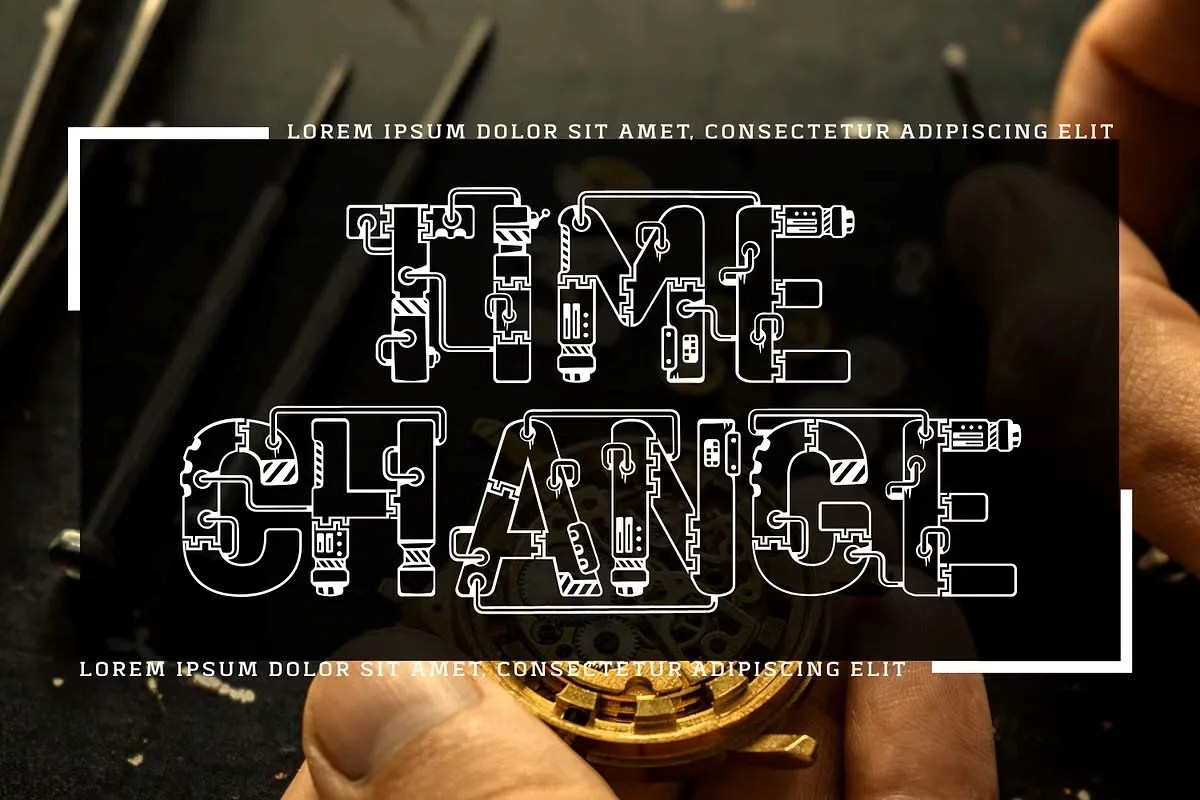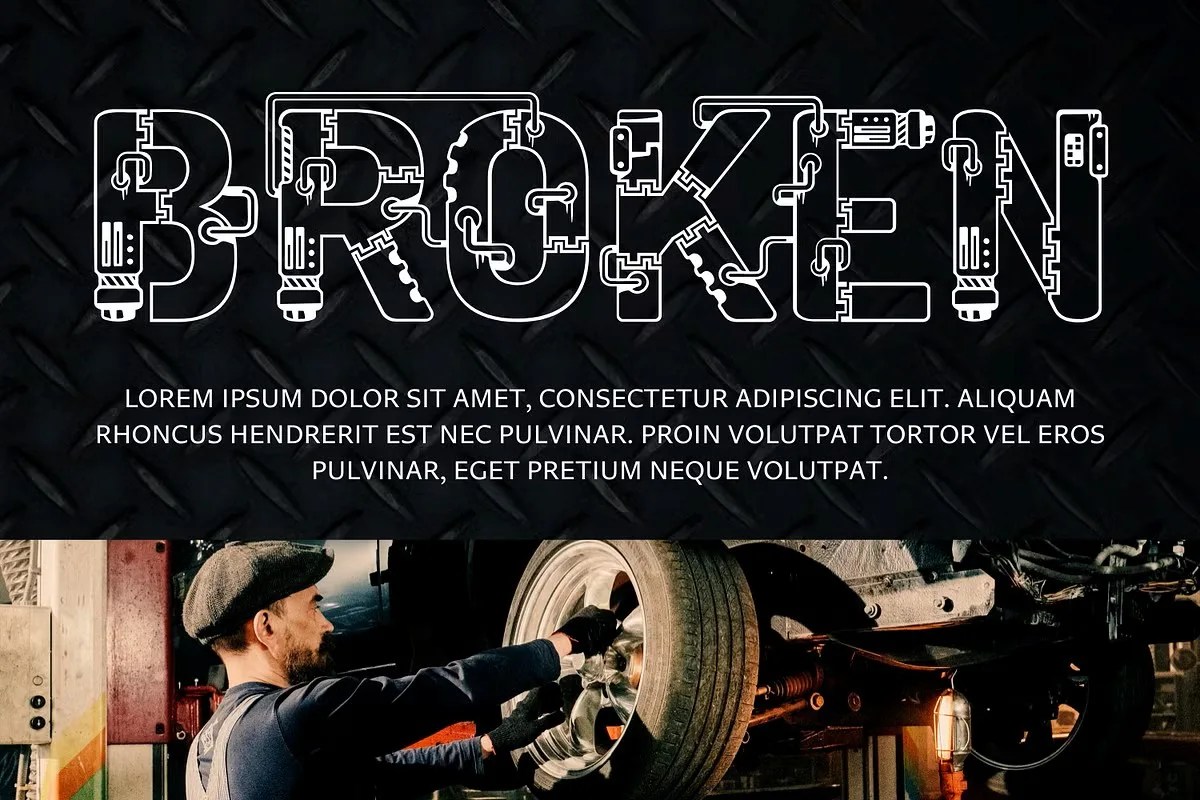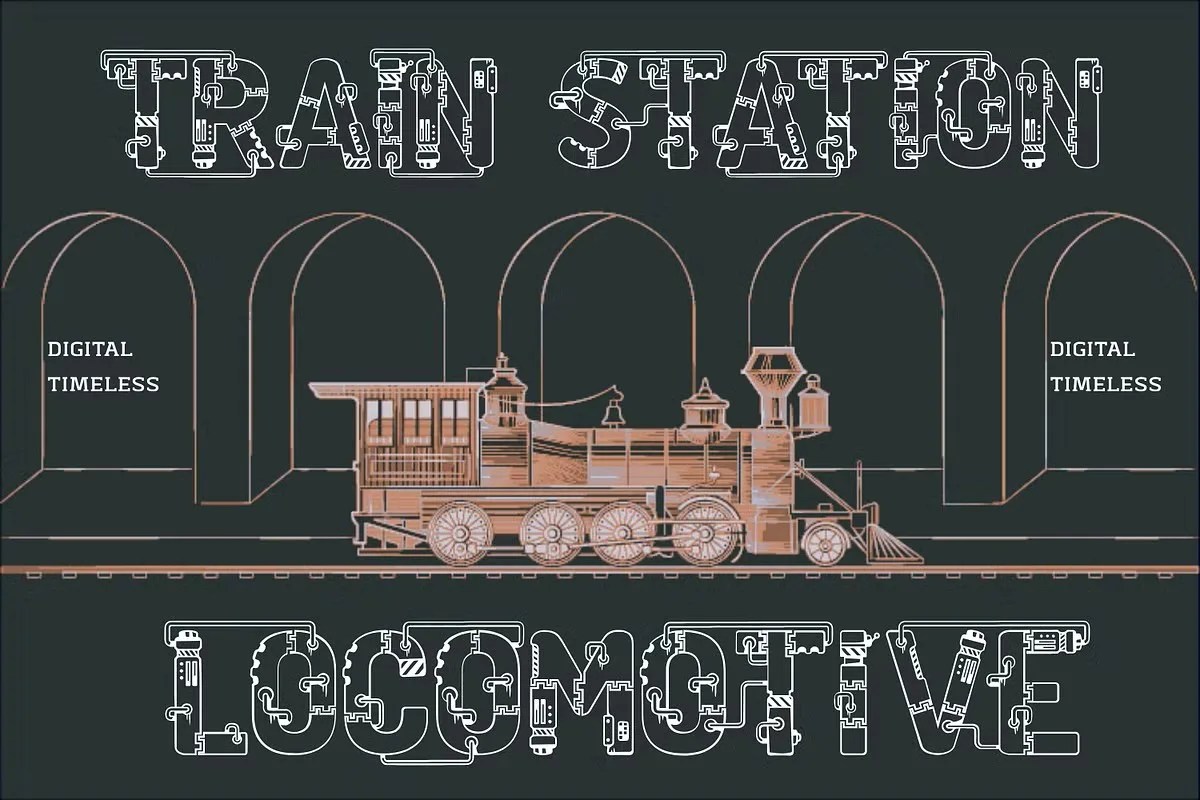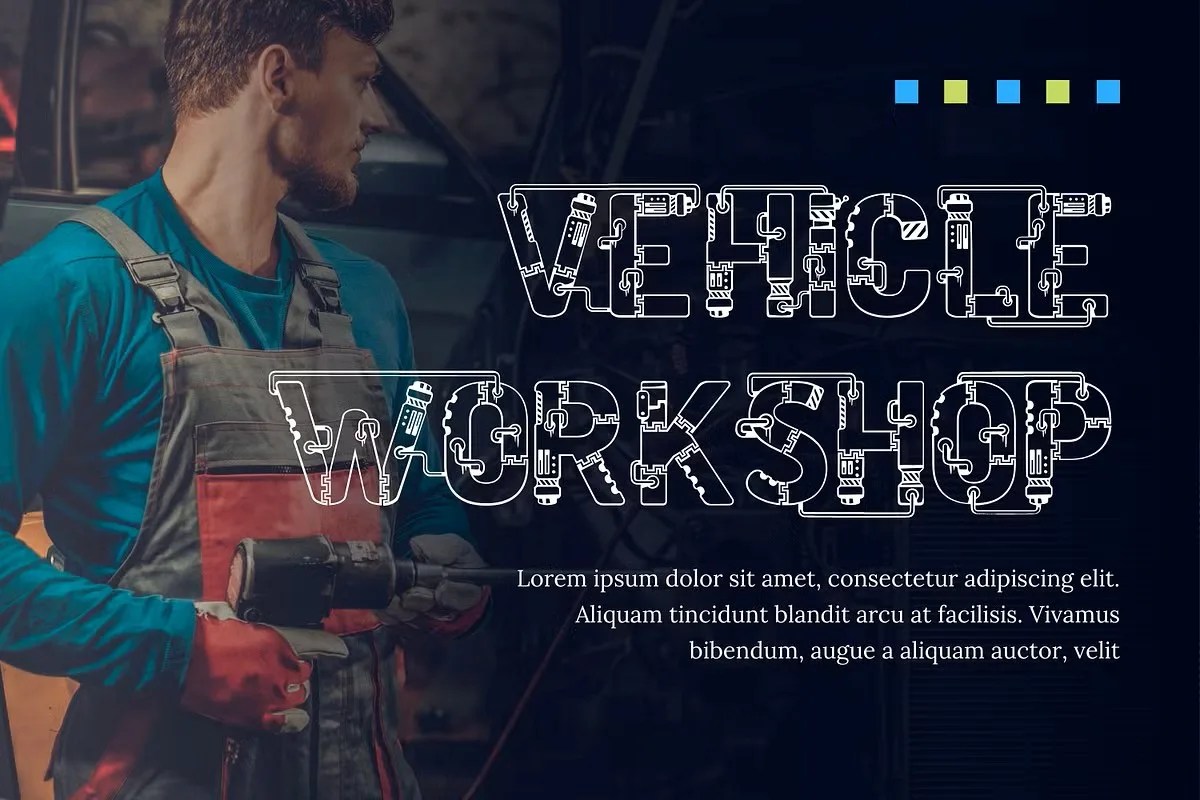
Digital Timeless by 177Studio. This is a truly timeless sans serif font built for the modern age. It masterfully balances digital precision with classic design principles. The font offers incredible clarity on screens. Yet, it also possesses an elegance that feels permanent and enduring. Digital Timeless is the perfect choice for projects that need to feel both current and everlasting, bridging the gap between fleeting trends and classic design.
This font is a true workhorse for any designer’s toolkit. Specifically, its superb readability makes it ideal for body text in both print and digital publications. It handles long paragraphs with exceptional grace. Furthermore, this timeless sans serif font provides a clean and professional voice for corporate branding. Use it for logos, presentations, and comprehensive style guides. Its versatility means you can apply it to both headlines and text, creating a completely cohesive and harmonious look across all of your brand’s communications.
• Clean and timeless sans serif style
• Optimized for digital and print readability
• Ideal for branding, UI design, and body text
• Blends modern clarity with classic proportions
Digital Timeless